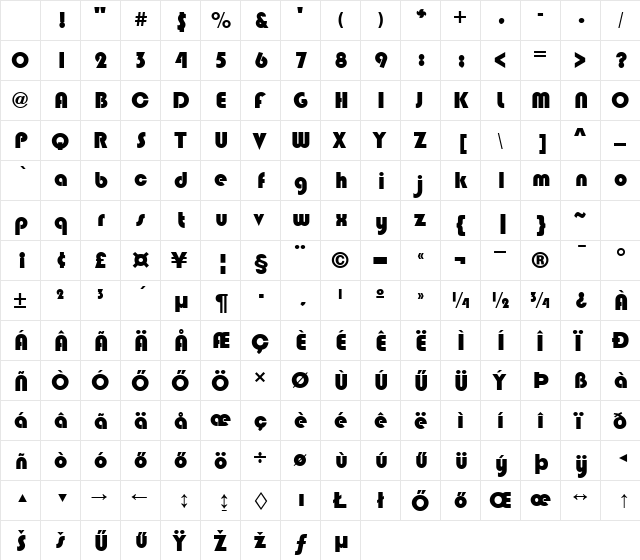
Complete H_Blippo Heavy glyph index. Displaying only characters natively supported by H_Blippo Heavy font.
H_Blippo is a composed and adaptable typeface that performs quietly and consistently across a wide range of design contexts.